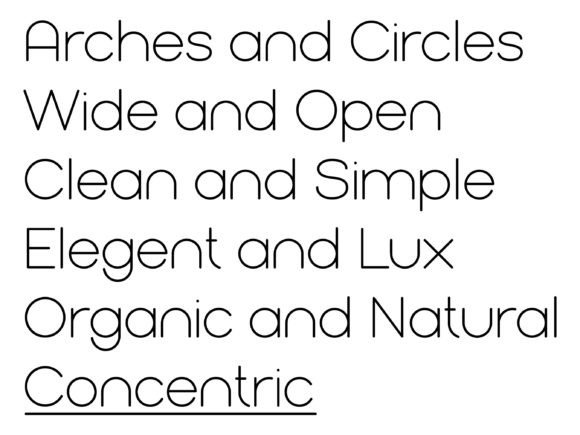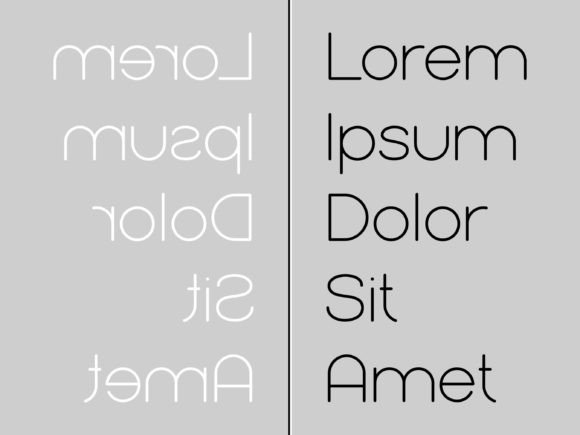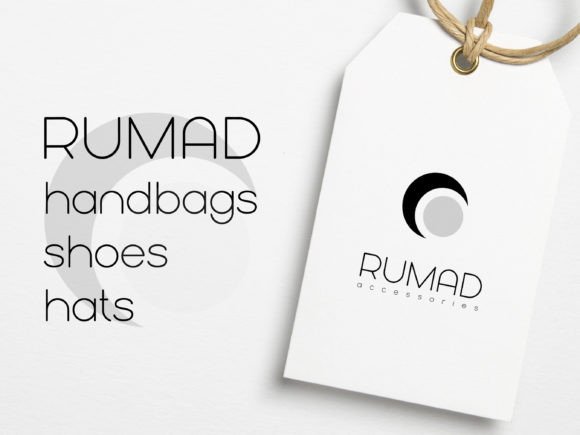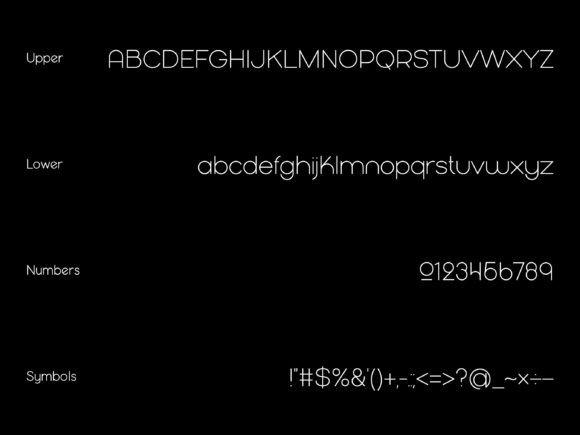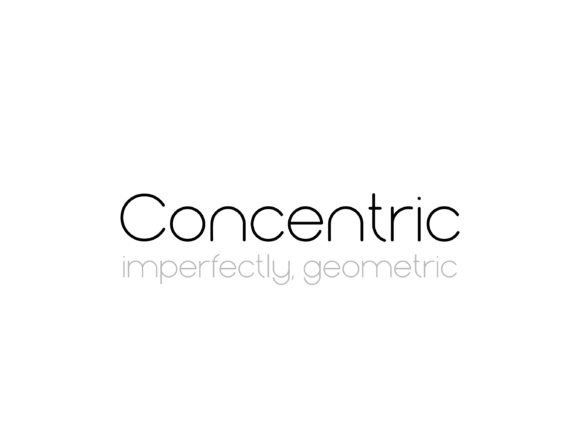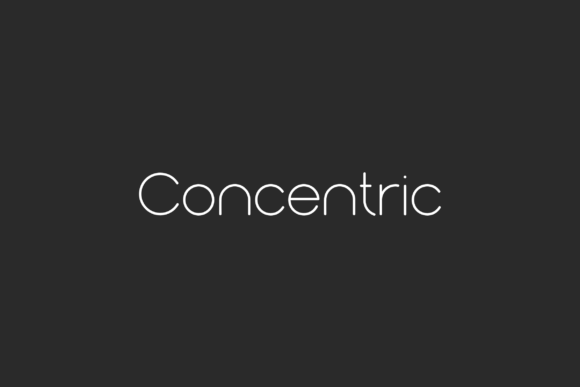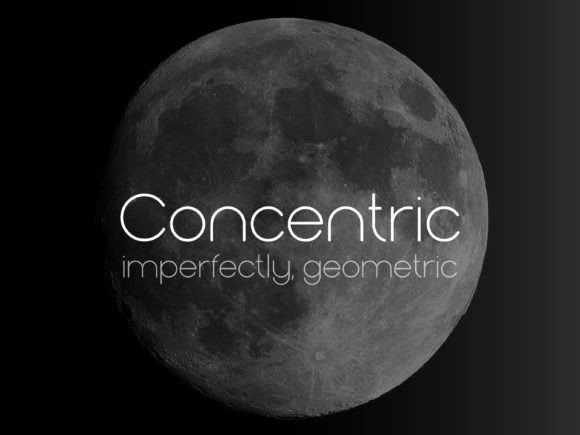
Introducing Concentric Font: Elevate Your Brand with Elegance and Sophistication
In the world of typography, fonts play a crucial role in shaping the identity of a brand. For cosmetic and fashion companies, a font that exudes elegance, sophistication, and a touch of organic charm can make all the difference. This is where Concentric Font comes into play, offering a perfect blend of clean lines, beautiful arches, and a handcrafted touch.
Clean Lines, Beautiful Arches: The Concentric Font Advantage
Concentric Font boasts clean lines that provide a crisp and modern look, making it an ideal choice for brands that want to convey a sense of luxury and refinement. The beautiful arches add a touch of elegance, setting it apart from more traditional fonts. This unique combination makes Concentric Font perfect for creating a sophisticated brand image that resonates with high-end cosmetic and fashion audiences.
Concentric Font Example
Geometric yet Handcrafted: The Best of Both Worlds
One of the standout features of Concentric Font is its intriguing blend of geometric lines and handcrafted elements. While the font’s structure is based on geometric shapes, it was carefully crafted by hand to introduce an organic touch. This harmonious balance between precision and personality makes Concentric Font versatile and uniquely captivating.
Why Choose Concentric Font for Your Brand?
• Elegant and Sophisticated: Perfect for cosmetic and fashion brands aiming to convey luxury and refinement.
• Clean and Modern: Ideal for creating a crisp, contemporary brand image.
• Unique Arches: Adds a touch of elegance and sets your brand apart.
• Handcrafted Touch: Provides an organic feel that resonates with audiences.
• Versatile: Suitable for a wide range of branding materials, from logos to packaging.
Using Concentric Font in Your Design Projects
Concentric Font is not just a typeface; it’s a design element that can elevate your projects. Whether you’re working on a logo, brochure, packaging, or website, this font can help you create a cohesive and luxurious brand experience. Its readability and aesthetic appeal make it suitable for headlines, body text, and more.
To make the most of Concentric Font, consider the following tips:
• Pair it with Simplicity: Let the font be the focal point by pairing it with simple backgrounds and design elements.
• Experiment with Colors: Elegant brands often use a limited color palette. Experiment with neutral tones and metallic colors to enhance the luxurious feel.
• Consider Letter Spacing: Adjusting the letter spacing can significantly impact the overall look. Increase it for a more elegant, luxurious feel.
Concentric Font offers a unique opportunity for designers and crafters to elevate their branding projects with a touch of elegance and sophistication. Its blend of clean lines, beautiful arches, and a handcrafted touch makes it an excellent choice for cosmetic and fashion brands aiming to make a lasting impression. By incorporating Concentric Font into your design repertoire, you can create stunning, high-end branding materials that resonate with your audience.
Discover the potential of Concentric Font and take your branding projects to new heights of elegance and sophistication.